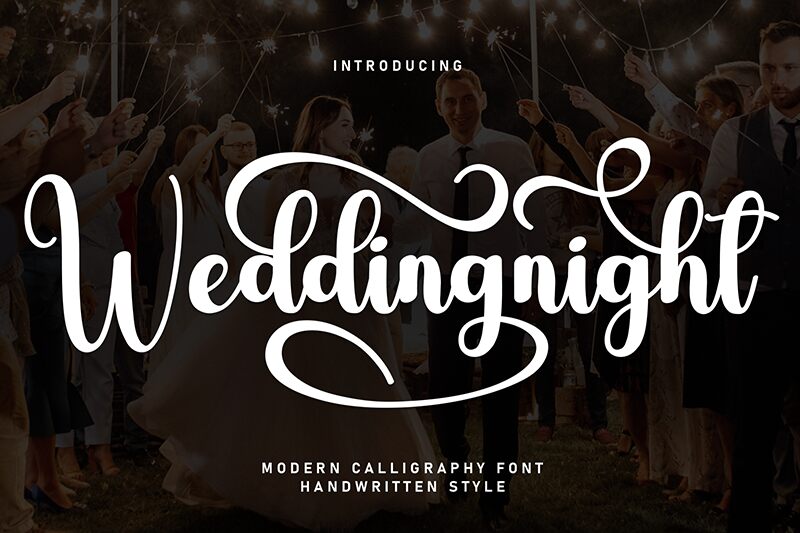
Weddingnight
Weddingnight font is a free calligraphy font by Andi Moz. Its fluid style assumes the finest written quality of artistic handwritten manuscripts making it suitable for romantic, sophisticated, and decorative applications. It boasts elegant swirls that culminate both at the beginning and ending of each word adding more luxury to its contemporary display.
This professional tool will be a magnificent hub to spark your work in place cards, photo albums, business cards, logos, greeting cards, T-shirts design among others. Floral shop posters or beauty and fashion magazine covers will also be amazing use cases for this masterpiece.